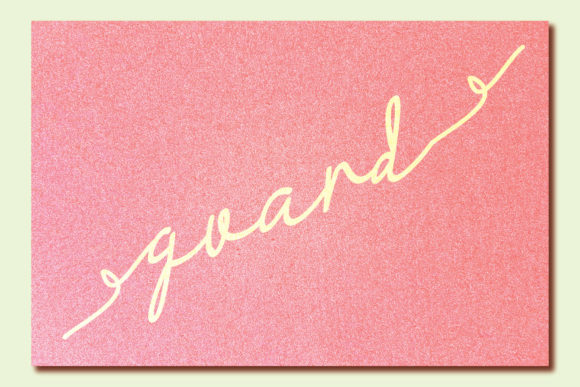
About Guard Font
Guard is a stylish and delicate font that brings a clean, thin, and smooth vibe to any design. With its refined and elegant letterforms, this font adds a touch of sophistication to your projects.
The clean lines and sleek curves of Guard make it suitable for a wide range of design applications. Whether you’re working on branding projects, logo designs, editorial layouts, or any other creative endeavor, this font will elevate your work and give it a polished and professional look.
The delicate nature of Guard lends itself well to designs that require a subtle and understated touch. It can be used to create elegant and minimalist designs, allowing the content to take center stage while still maintaining a sense of sophistication in the typography.
One of the strengths of Guard is its versatility. It can seamlessly adapt to different design styles and themes, making it a versatile choice for various projects. Whether you’re going for a contemporary and modern look or a more classic and timeless aesthetic, Guard will complement your vision and enhance the overall design.
The smooth and refined appearance of Guard adds a sense of elegance and finesse to your typography. Its balanced letterforms create a harmonious visual flow, making the text pleasing to the eye and easy to read. The font’s delicate nature also makes it a great choice for projects that require a sense of femininity or grace.
Whether you’re designing for print or digital platforms, Guard will make a lasting impression. Its stylish and delicate nature sets it apart and adds a touch of sophistication to any design. Embrace the clean, thin, and smooth vibes of Guard and watch as your projects come to life with an added layer of elegance and charm.